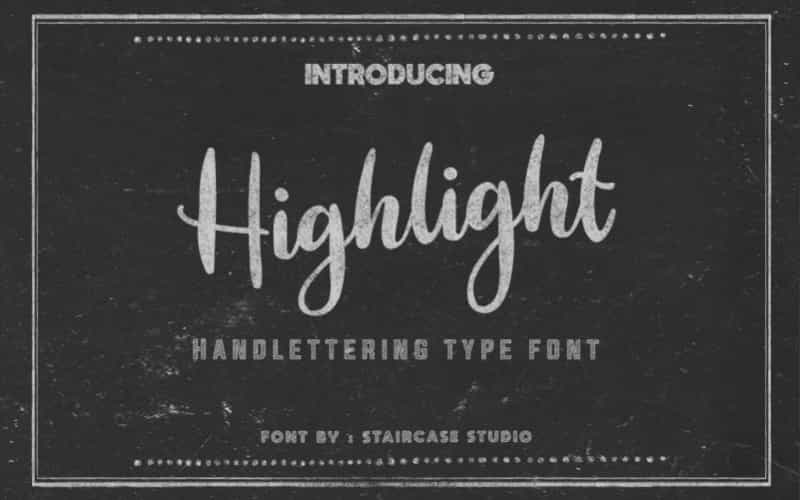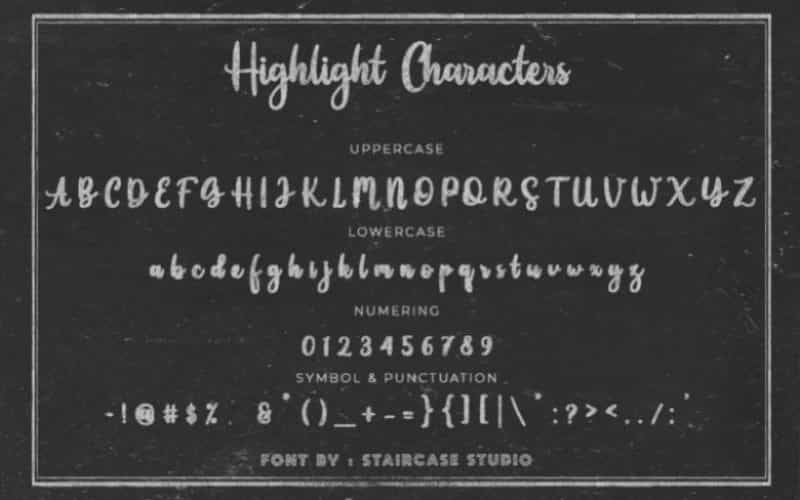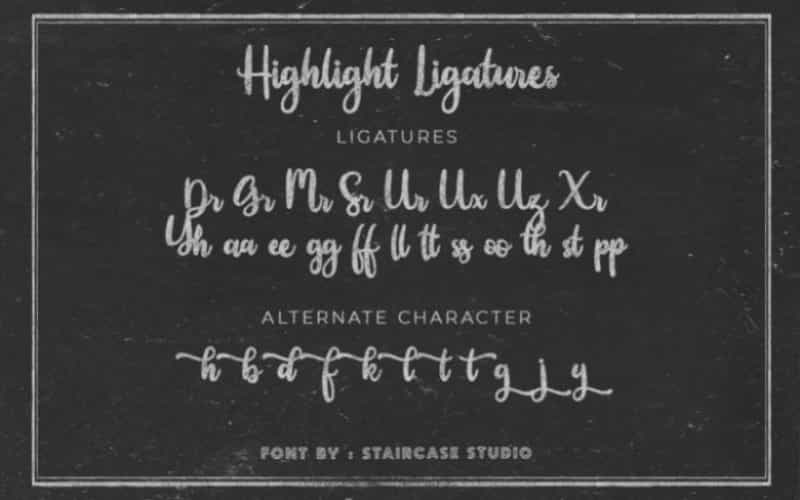
Discover Highlight Script Font, part of the Commercial Brush Calligraphy Handwritten collection—a versatile and unique font perfect for adding a personal touch to your projects. Download it for free and enjoy crafting designs with style, from invitations to social media posts. This font is available exclusively for personal use, giving you the freedom to create without limits. Unlock your creativity with Highlight Script Font today!
Emphasize the Font with new and contemporary styles. A set of letters and numbers that fits your projects also ideal for Logotype, Branding Design, Logo Design, Digital Lettering Arts, T-Shirt/Apparel, Poster, Magazine Illustration. Signs/Wedding Invitation/Birthday Invitation/Signage design needs can be created using this collection.